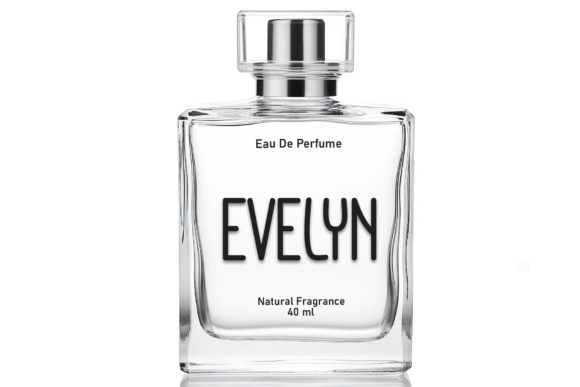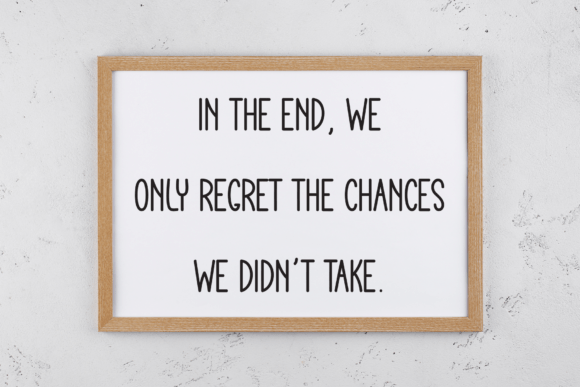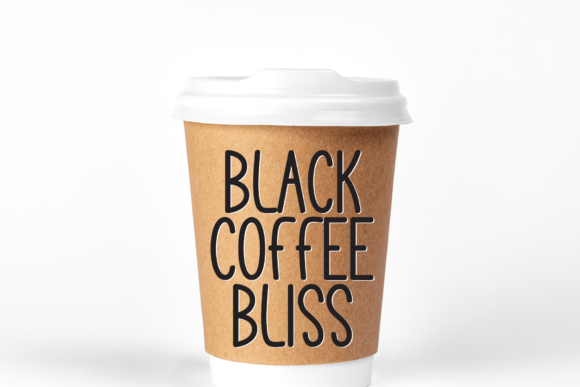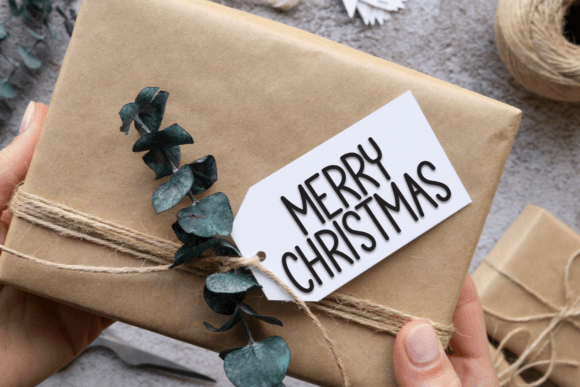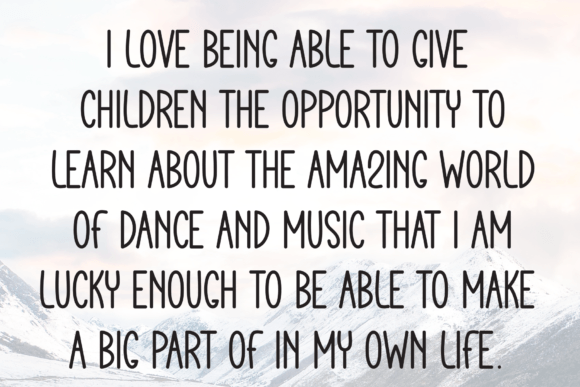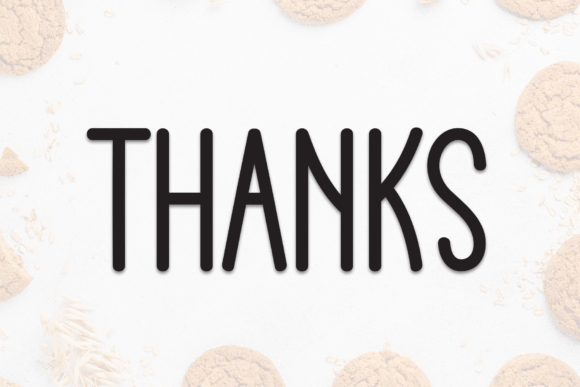
Cookies Font: The Sweetest Addition to Your Design Projects
Are you looking for a font that can add a touch of sweetness and friendliness to your design projects? Look no further than Cookies Font! This beautiful handwritten font is perfect for creating fun and playful designs that are sure to capture the attention of your audience. In this article, we’ll take a closer look at Cookies Font, its features, and how you can use it to elevate your design projects.
What is Cookies Font?
Cookies Font is a sweet and friendly handwritten font that is designed to bring a touch of whimsy and fun to your designs. With its cute and playful style, this font is ideal for writing wedding invitations, cards, or any other design that might need a fun touch. Whether you’re a designer, crafter, or DIY enthusiast, Cookies Font is a great addition to your font collection.
Features of Cookies Font
Cookies Font comes with a range of features that make it perfect for a variety of design projects. Some of its key features include:
- Handwritten style: Cookies Font has a beautiful handwritten style that gives it a personal and friendly touch.
- Cute and fun: This font is designed to be cute and fun, making it perfect for designs that need a playful touch.
- Versatile: Cookies Font can be used for a wide range of design projects, from wedding invitations to social media graphics.
- Easy to read: Despite its playful style, Cookies Font is easy to read, making it perfect for designs that need to communicate a message.
Uses of Cookies Font
Cookies Font is a versatile font that can be used for a wide range of design projects. Here are some ideas to get you started:
- Wedding invitations: Cookies Font is perfect for writing beautiful and playful wedding invitations that will set the tone for the big day.
- Cards and stationery: This font is great for creating fun and playful cards and stationery for special occasions.
- Social media graphics: Cookies Font can be used to create eye-catching social media graphics that will help you stand out from the crowd.
- DIY projects: Whether you’re making signs, banners, or other DIY projects, Cookies Font is a great choice.
Tips for Using Cookies Font
Here are some tips for using Cookies Font in your design projects:
- Pair it with other fonts: Cookies Font can be paired with other fonts to create a unique and interesting look.
- Use it for headings: This font is perfect for headings and titles, where its playful style can really shine.
- Experiment with colors: Cookies Font looks great in a range of colors, so don’t be afraid to experiment and find the perfect color for your design.
Cookies Font is a sweet and friendly handwritten font that is perfect for adding a touch of fun and playfulness to your design projects. With its cute and playful style, this font is ideal for writing wedding invitations, cards, or any other design that might need a fun touch. Whether you’re a designer, crafter, or DIY enthusiast, Cookies Font is a great addition to your font collection.